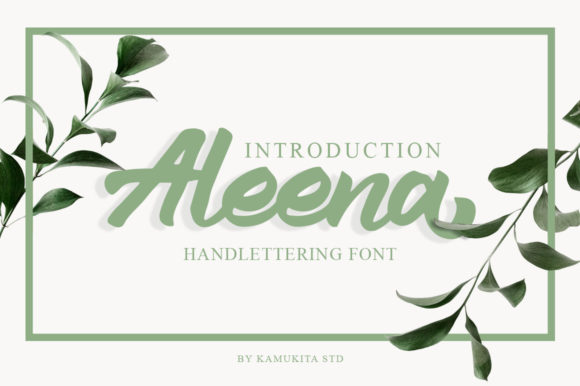
The Aleena Font: A Simple yet Stunning Brushed Handwritten Delight
I’ll never forget the moment I stumbled upon the Aleena font. I was working on a wedding invitation project for a client, and I was struggling to find the perfect font that would capture the elegance and whimsy of the couple’s special day. As I scrolled through my font library, Aleena caught my eye, and I was immediately smitten. Its simple, yet beautiful brushed handwritten style seemed to scream “romance” and ” sophistication.” In this article, I’ll share my love for Aleena, its features, and how to make the most of this gorgeous font.
An Honest Review of Aleena Font
What I Love About Aleena ✨
- ✅ Incredibly versatile: Aleena can be used for a wide range of projects, from wedding invitations to social media posts.
- ✅ Beautifully crafted: The font’s brushed handwritten style gives it a unique, organic feel that’s hard to find in digital fonts.
- ✅ Easy to read: Despite its elegant and cursive nature, Aleena is surprisingly easy to read, even at smaller font sizes.
- ✅ Highly customizable: With OpenType features and glyphs, you can experiment with different styles and alternates to make Aleena your own.
- ⚠️ Limited use for body text: While Aleena is beautiful, it’s not the best choice for long blocks of text. It’s better suited for headings, titles, and short paragraphs.
- ⚠️ May not work well with all design styles: Aleena’s elegant and romantic feel may not fit with bold, edgy, or minimalist design styles.
The Story Behind Aleena Font
Aleena was designed by a talented font designer who wanted to create a beautiful, elegant script font that would capture the romance and sophistication of handwritten calligraphy. Inspired by classic wedding invitations and stationery, Aleena was crafted with love and care to bring a touch of elegance to any design project.
Q: What type of projects is Aleena best suited for?
Aleena is incredibly versatile and can be used for a wide range of projects, including wedding invitations, stationery, social media posts, and more.
Q: Is Aleena a difficult font to read?
No, Aleena is surprisingly easy to read, even at smaller font sizes. Its elegant and cursive nature makes it perfect for headings, titles, and short paragraphs.